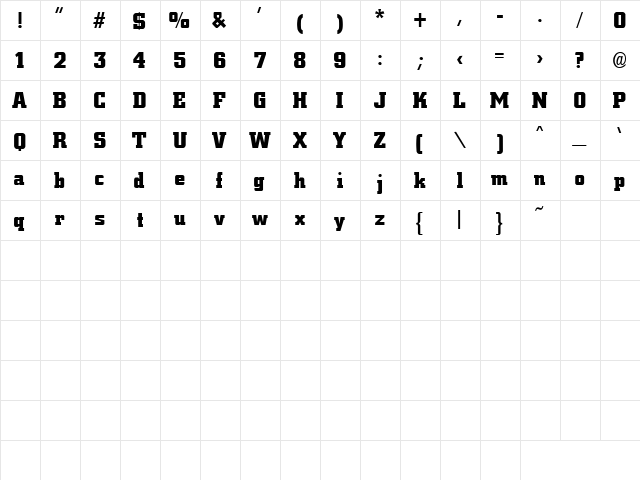
Disasters 2 Regular Font Preview
Disasters 2 Regular
Design Context for Disasters 2 Typeface
Disasters 2 takes a measured approach to typography — its balanced proportions and neutral character make it a reliable workhorse for both digital and print work.
Pro Tip: Use Disasters 2 in both headline and body roles to test its range before committing to a single application.